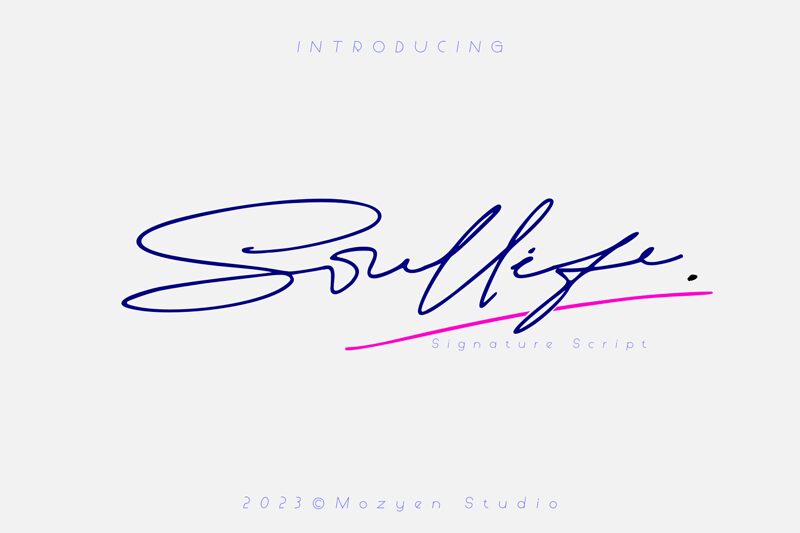
Soullife
Soullife font is a free handwritten font with an all-caps character structure that’s designed in a light-weight and a slightly expanded width. The elegant flowing letters are clean and sophisticated. They feature some peculiar curves creating an overall sophisticated modern script style.
A variety of designs can be made to benefit from Soullife’s letters: magazines, journals, books, banners, signboard mockups, food packaging labels, restaurant menus, window displays etc.